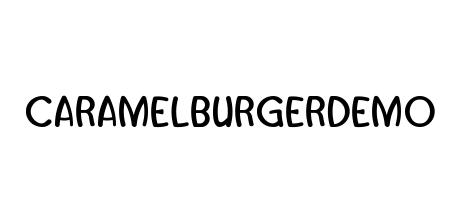
CaramelBurgerDemo
CaramelBurgerDemo: A playful, hand-drawn font dripping with sweet charm. Its slightly irregular characters evoke the carefree spirit of a homemade dessert, perfect for adding a touch of whimsical fun to logos, posters, or packaging. The rounded forms and friendly feel make it irresistible.